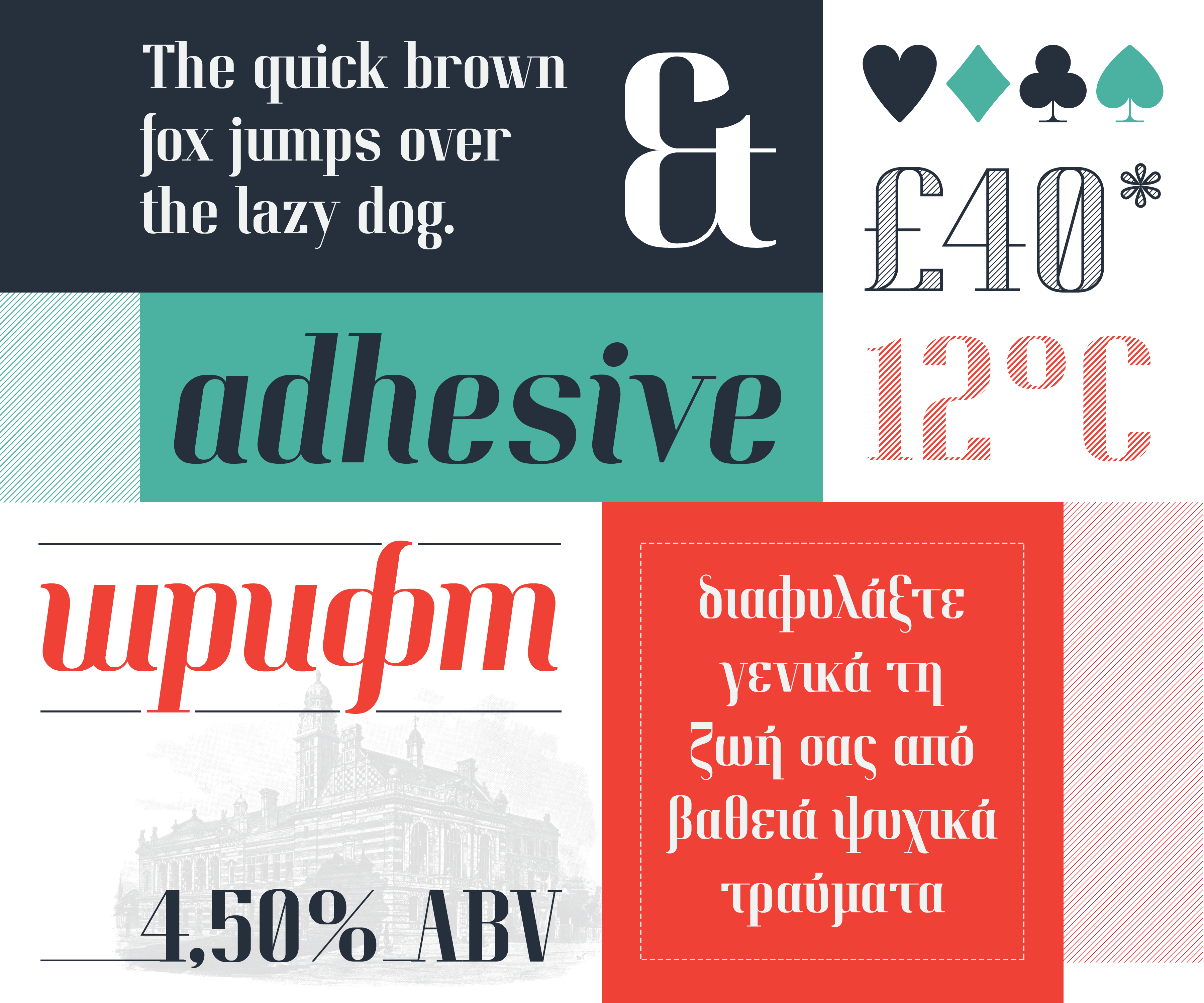
Pitch Display Typeface
Pitch Display is a condensed modern serif with a geometric feel - ideal for headlines and short paragraphs. Inspired by classic didone type and modern calligraphy, it combines hairline serifs and smooth curves. The Pitch typeface comes in a regular and italic version (500+ glyphs each including Greek and Cyrillic characters and many diacritics).